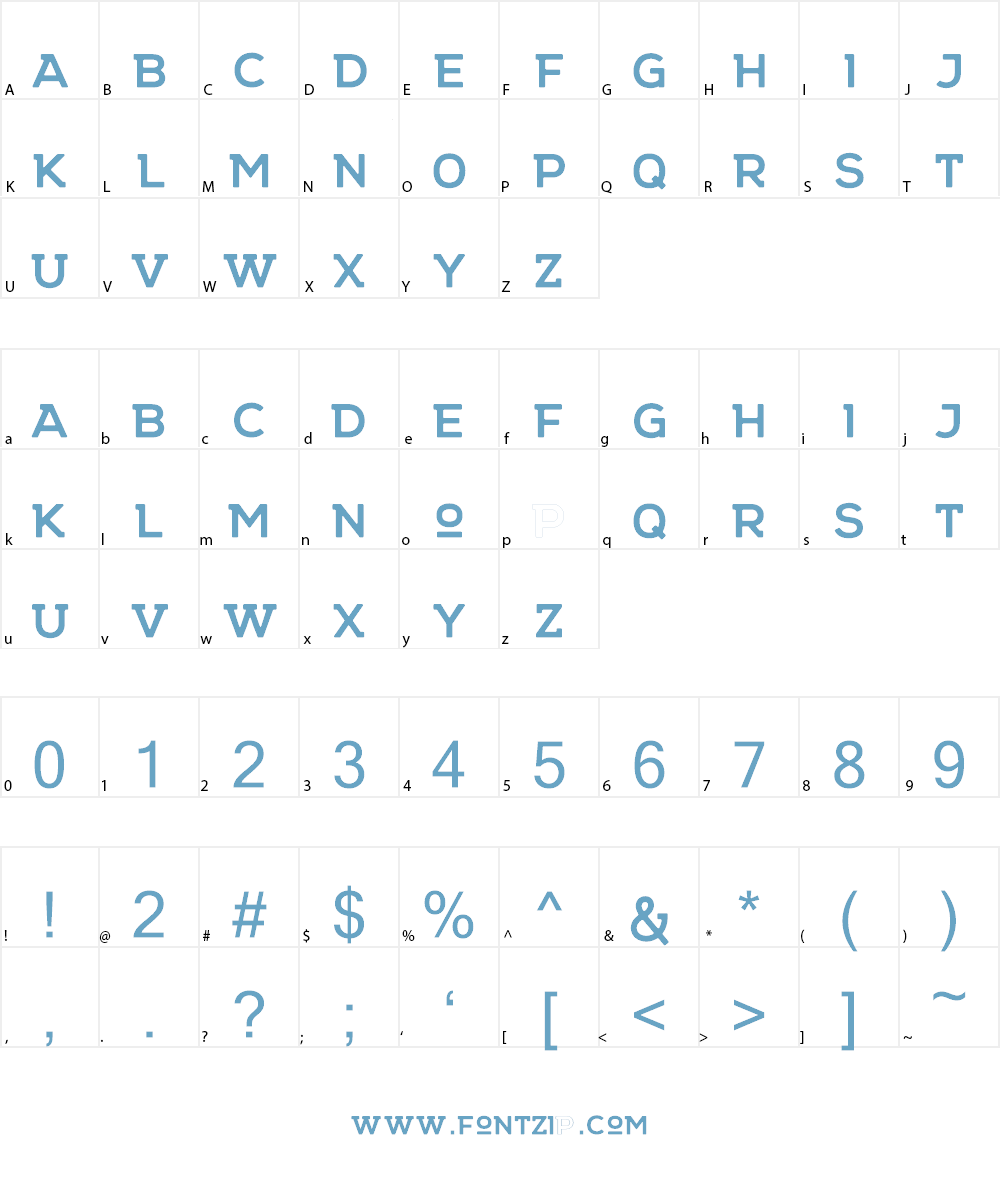
Northwest embodies our memories of the American Pacific Northwest with it's rugged and beautiful landscapes, and the hand made signage in country towns. This typeface is what we wanted, and thought you'd want it too.
Use it to make any retro design look authentic. With its soft edges, it will give that vintage printing look you are going for. Use it in your branding, magazines, packaging, business cards & t-shirts. You name it. The Sky is the limit!